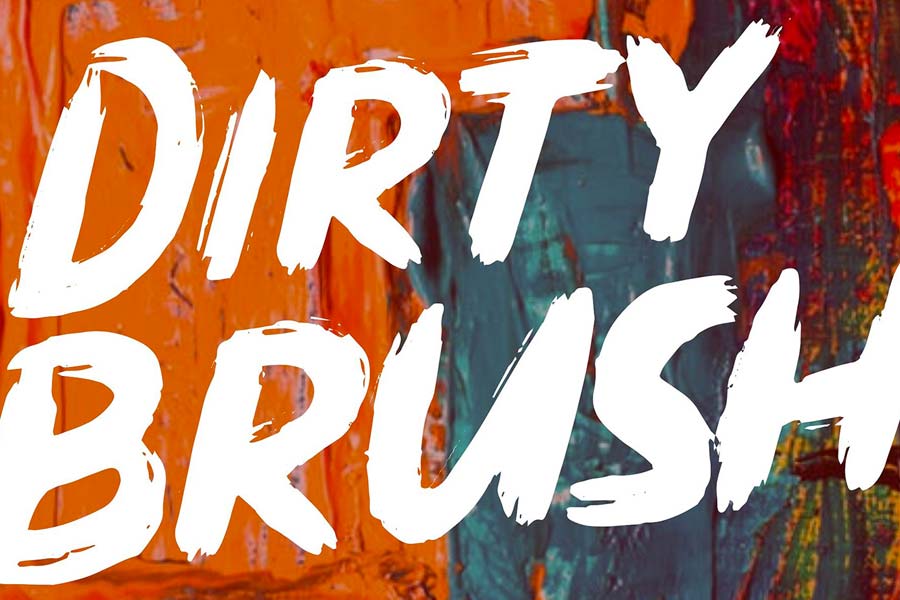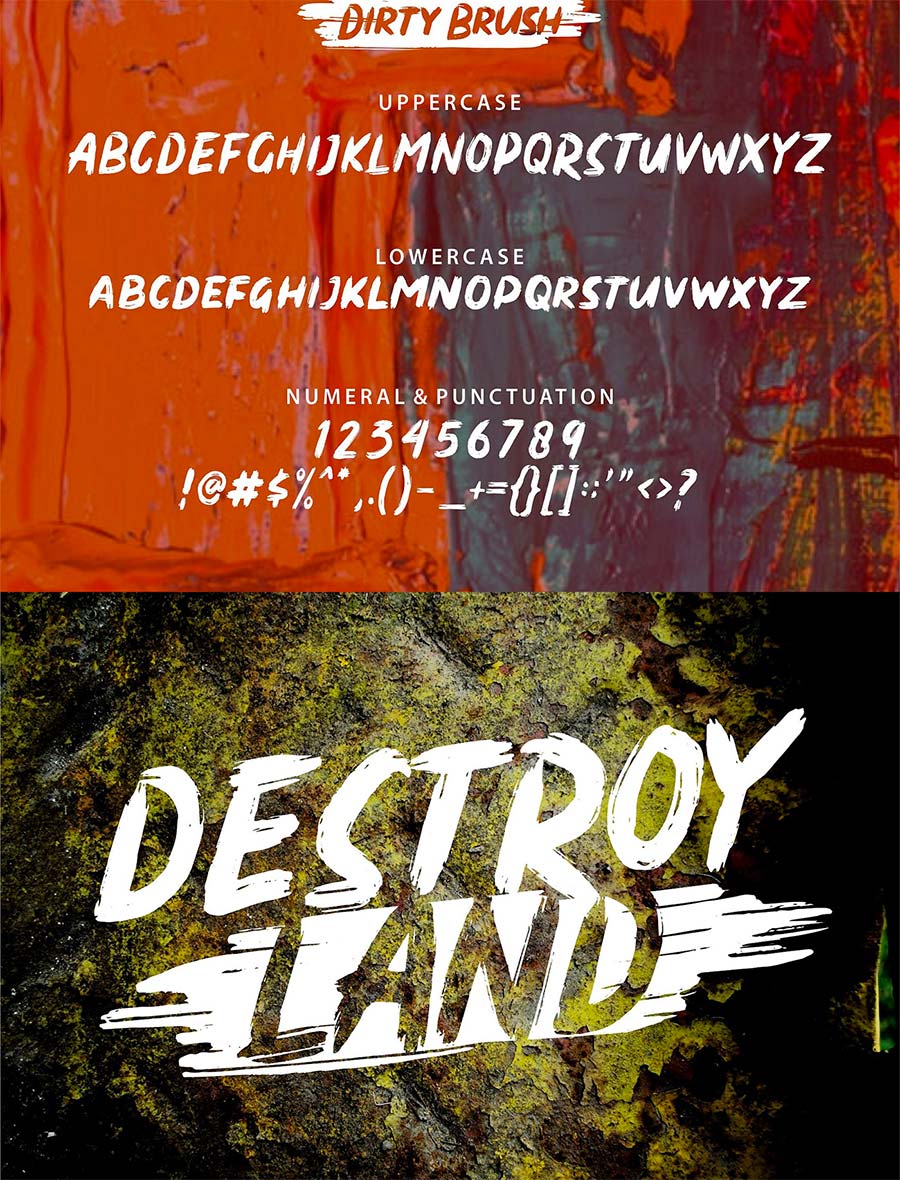
Dirty Brush is a grungy display free font face for download. The font retains the rough texture of a brush, while the natural slanting angle of the font creates the sense of dynamic.
Dirty Brush comes with basic latin characters and you can download it for personal use. It will be a great fit for logo, branding, packaging, poster designs and more that in need of that ruggedness, raw and power feel.